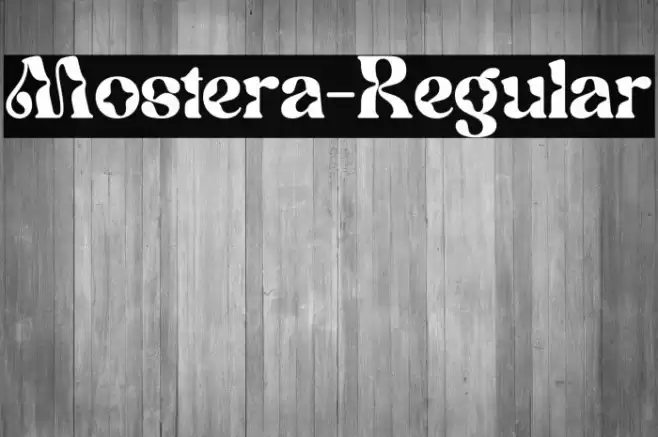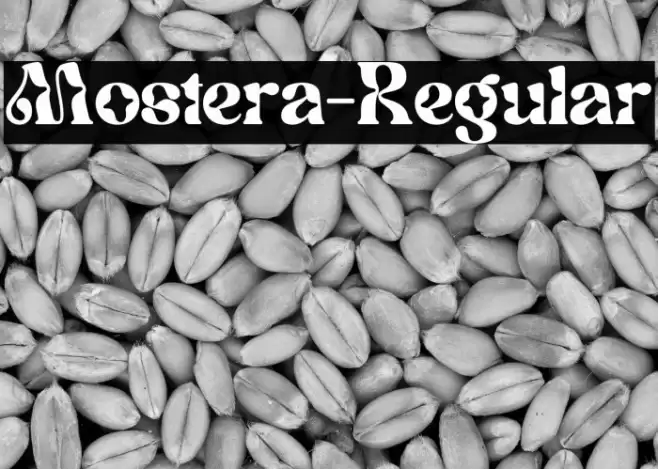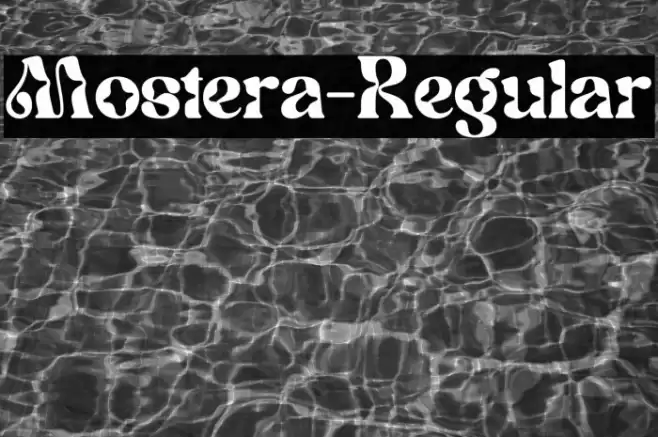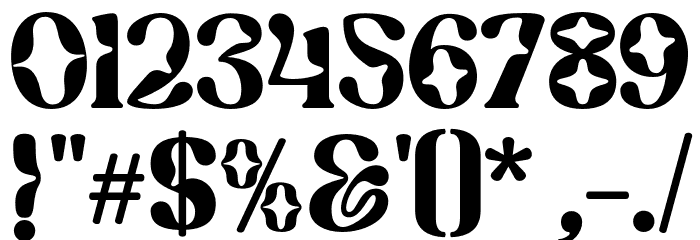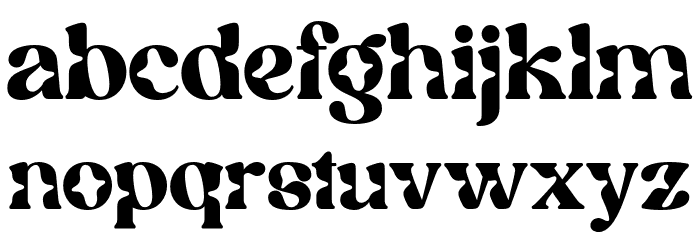
Mostera-Regular Font
This font features a bold and decorative style with unique, artistic flourishes that give it a playful and whimsical appearance. The characters are thick and robust, with intricate cutouts and curves that add visual interest. The uppercase and lowercase letters maintain a consistent design theme, while the numerals and special characters complement the overall aesthetic. This font is highly stylized, making it suitable for creative and eye-catching designs.
A bold, decorative font with playful, artistic flourishes from Kids fonts.
- Proposed Projects: Ideal for posters, branding, packaging, and any project requiring a bold, artistic touch.